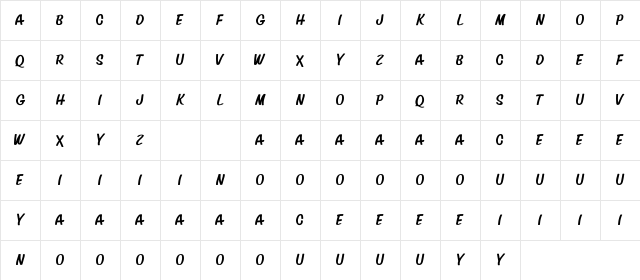
David And SovhieDEMO Sans Free Font
David And SovhieDEMO Sans
Style: Sans
Foundry: Silverdav Studio
Designer: David Kasidi
Design Context for David And SovhieDEMO
David And SovhieDEMO is a composed and adaptable typeface that performs quietly and consistently across a wide range of design contexts.
Who designed the David And SovhieDEMO Sans font?